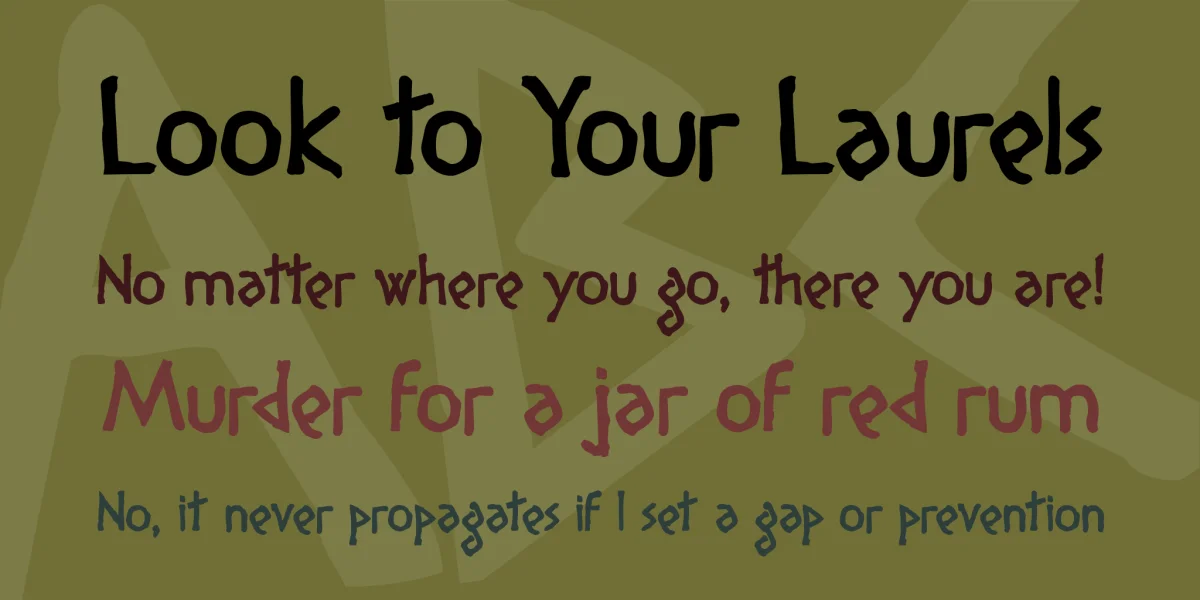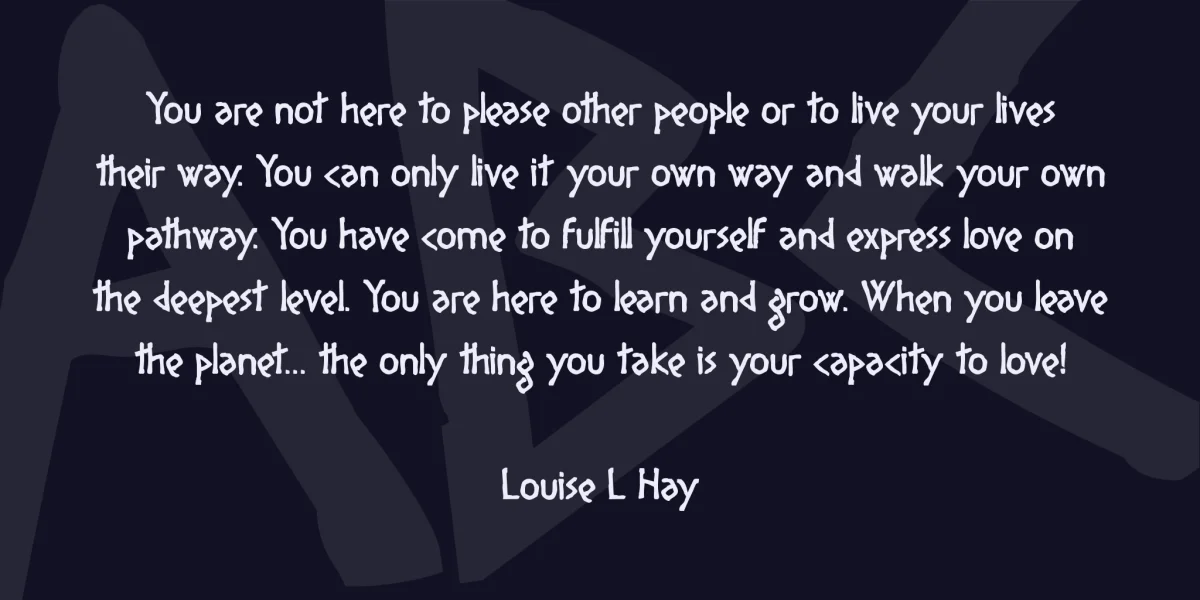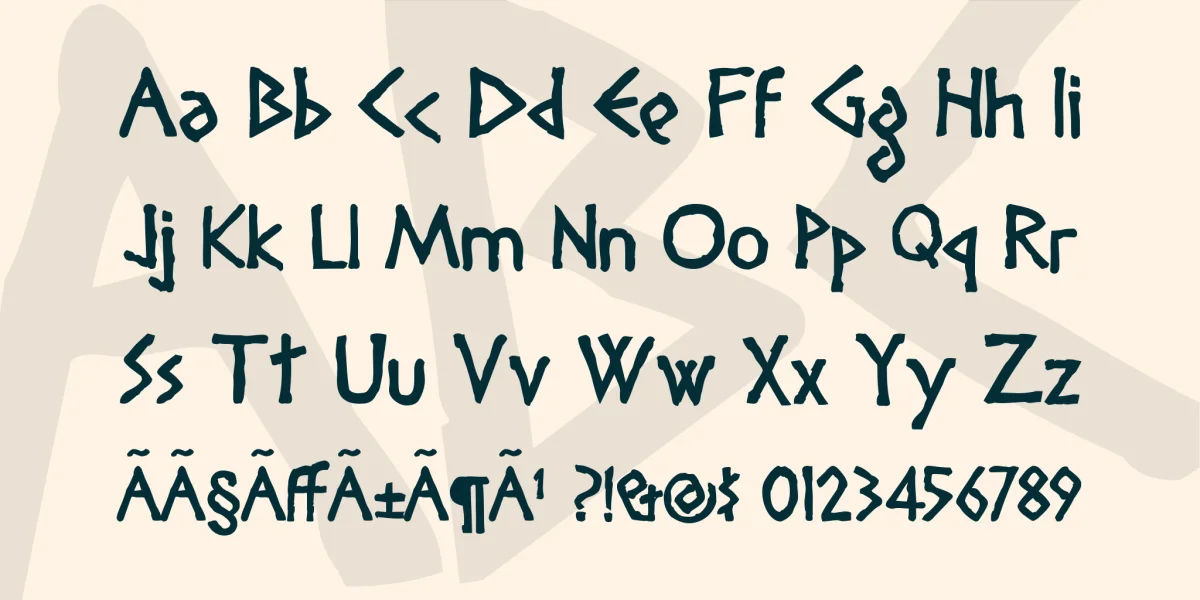
One professor of the ol' philosophy class at UofT was an extreme Diogenes fan. At least during my time there he was. He could now be a Mike Myers fan for all I know. He used to love quoting Diogenes, and his favourite question was this: "Are you an honest man?" He cocked an eyebrow and grinned everytime he asked that question. It was very strange when he posed that question to the girls. Back then the war between man and woman was the latest craze, but prof Parrish didn't give a rip. One day he asked Jennifer Trimble if she were an honest man. She flipped. She just lost in on him. Jennifer was a new initiate in the gender wars, and the Joan of Arc thing was more than a lifestyle for her. She stormed out of the room and went complaining to the dean. The dean must have said something to Parrish, because I never heard him ask that question again, though heaven knows I saw him on the verge of asking it so many times after that. His facial expression would be all ready for it, then suddenly some sort of a gauge in his head would go bonkers and the question never got asked.
Jennifer Trimble now works for Air Miles as a statistician, last I heard.
Parrish was a good guy. I liked his style. He used metaphors that went over everyone's head. The students must have spent days trying to extract meanings of sentences he threw around so casually. None of the girls liked him. He wasn't fashionable, never shaved, always looked right into people's eyes when talking to them, listened to Hendrix and the Doors, and drank pints of beer at Mick Finn's during lunch hour. In the early nineties, beer, beards and the Doors were really out. Bright cold hard drinks, shaved everything and mosh pits were in.
During my last year there, long after we were finished with Parrish and the Greeks, someone got him in trouble. There were rumours that he was a member of some cult. As the rumours usually have it, no mention of what sort of cult it was, but of course it was plausible as it related to Parrish, him being a philosophy professor and all. You teach philosophy to 20-year olds, chances are that you may be in a cult if it were ever brought up... and in the early nineties, the moment the word cult was uttered anywhere in Toronto, someone tied it in with Wolfgang Droege and the Zundel neo-nazis, who at the time had toll-free phone lines designed to hook kids into the white supremacy thing through biblical quotes, fashion statements, sensational cartel conspiracy jive, and all that jazz aimed at kids with a lot of energy and no idea what to do with it. So when the rumours started surfacing about Parrish, it was just a cult thing that nibbed the curiosity a bit, but a couple weeks later, it was rumoured that Parrish was a neo-nazi and one of Droege's main spokesmen. That was very strange because Parrish was a black guy, and it's hard to picture a black guy advocating white supremacy. But then again, when this question was asked, the rationale in the answer was that Parrish was probably the only black guy to ever fancy listening to the Doors, so anything was possible. Jokes flew around campus about how UofT had its own Michael Jackson. Michael Jackson was the proverbial wannabe-white black guy for a decade or so then.
I was too busy to check anything out at the time. Had the thesis to worry about and just didn't have a free moment to find out the truth of what happened. Each of my friends told a different story. Some said that it was all bullshit, some said that Parrish was actually the guy who scripted the lines for the brainwash machines that the kids dialed into, some said that it was all the doing of the second year girls of the philo class, and some went as far as tying Parrish back to the Black Panthers of way-back-when New York. Didn't know who to believe, and it didn't matter anyhow. Parrish resigned. A month later the word spread that he left town and went to Edmonton.
So tell me, chick-a-dee, are you an honest man?